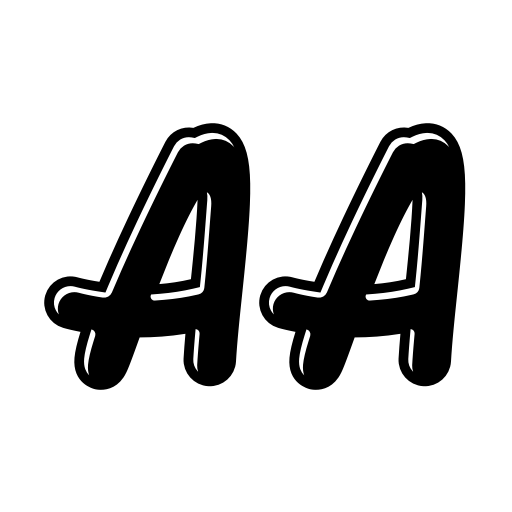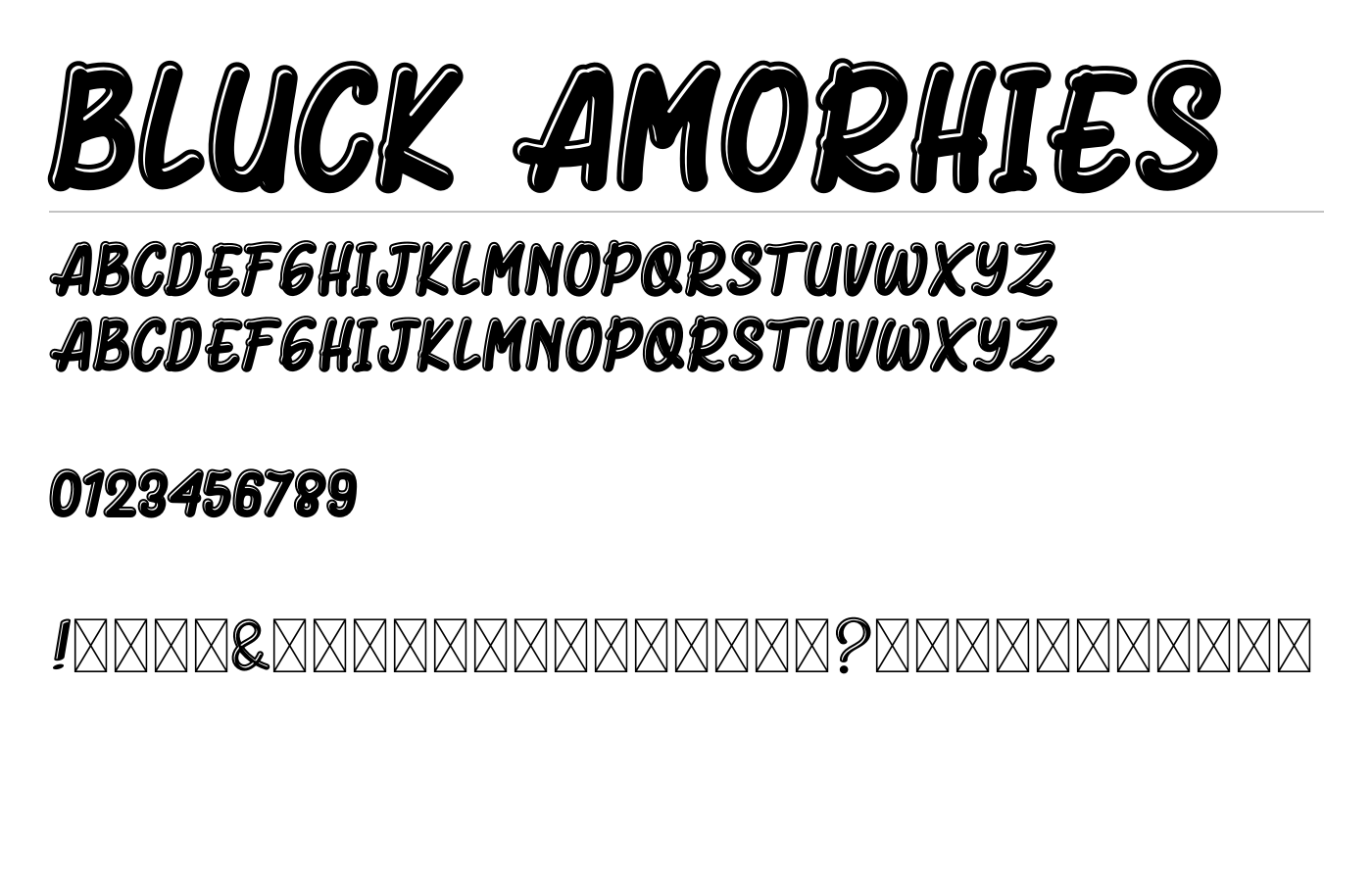
Bluck Amorhies is a bold and playful script-inspired font with a slightly condensed width and strong, rounded strokes that give it a lively, informal feel. Its thick, outlined letterforms and casual slant make it perfect for eye-catching headlines, logos, and fun branding projects that want to convey energy and personality. This font works best in creative designs where a friendly, approachable style is desired.
Bluck Amorhies Font